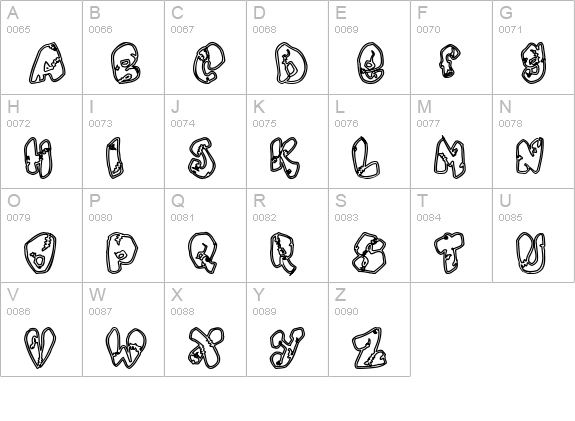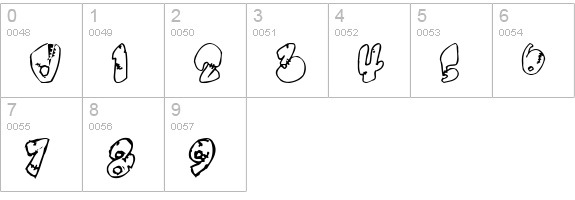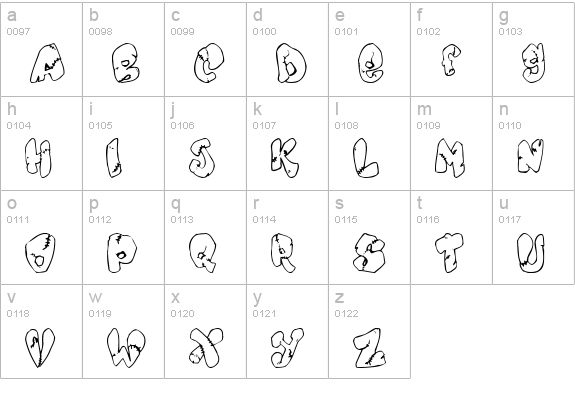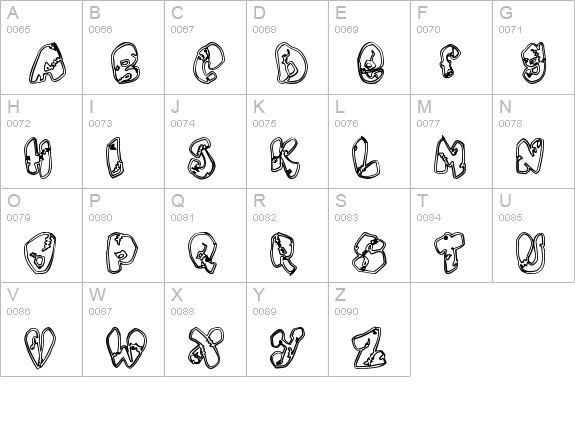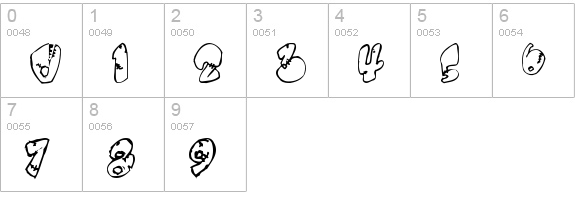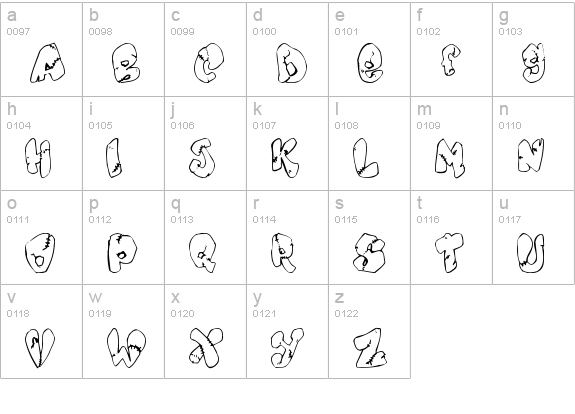
Chankenstein font is a playful and quirky typeface that exudes personality and charm. Inspired by classic horror movies and vintage typography, this font features bold, exaggerated letterforms with a touch of gothic flair. Perfect for adding a fun and unique touch to your designs, Chankenstein font is sure to make a statement. The best part? Chankenstein font is completely free to download at FontsMarket.com. Whether you're working on a spooky Halloween project, a whimsical poster, or just want to add some character to your branding, Chankenstein font is the perfect choice. So go ahead and unleash your creativity with this fantastic font that is just a click away!